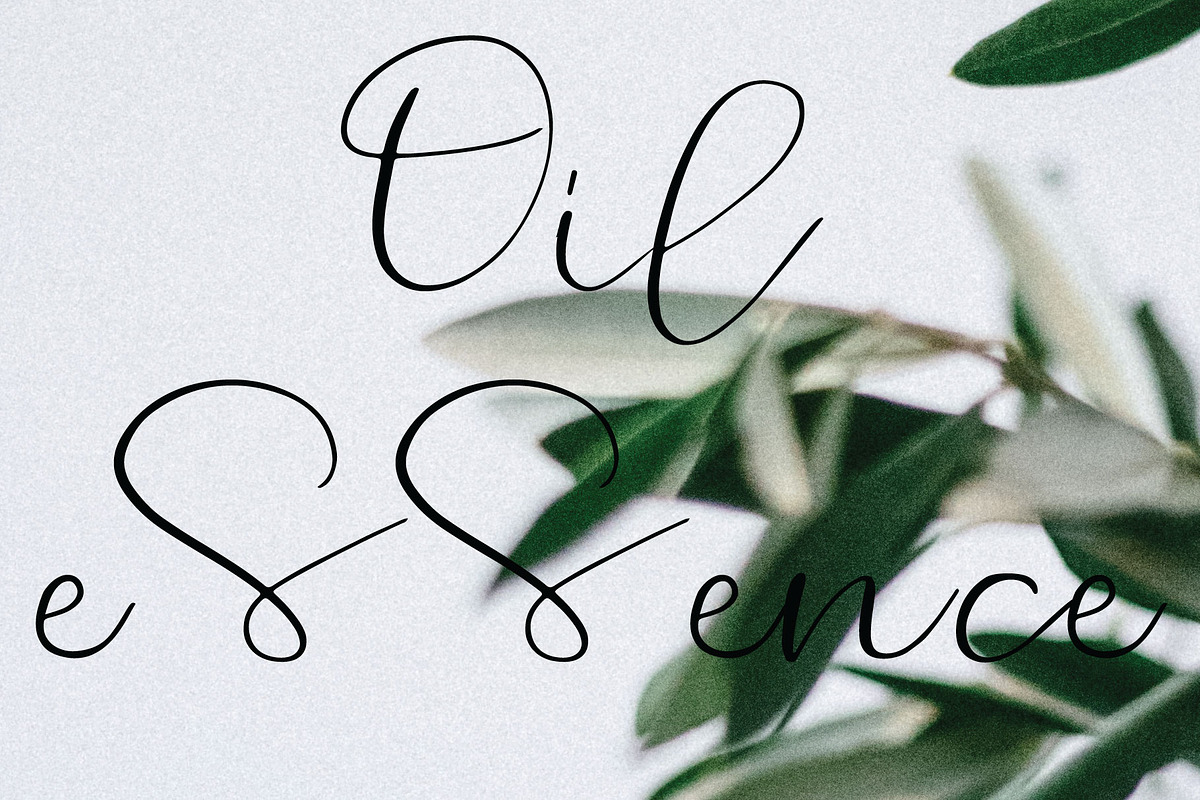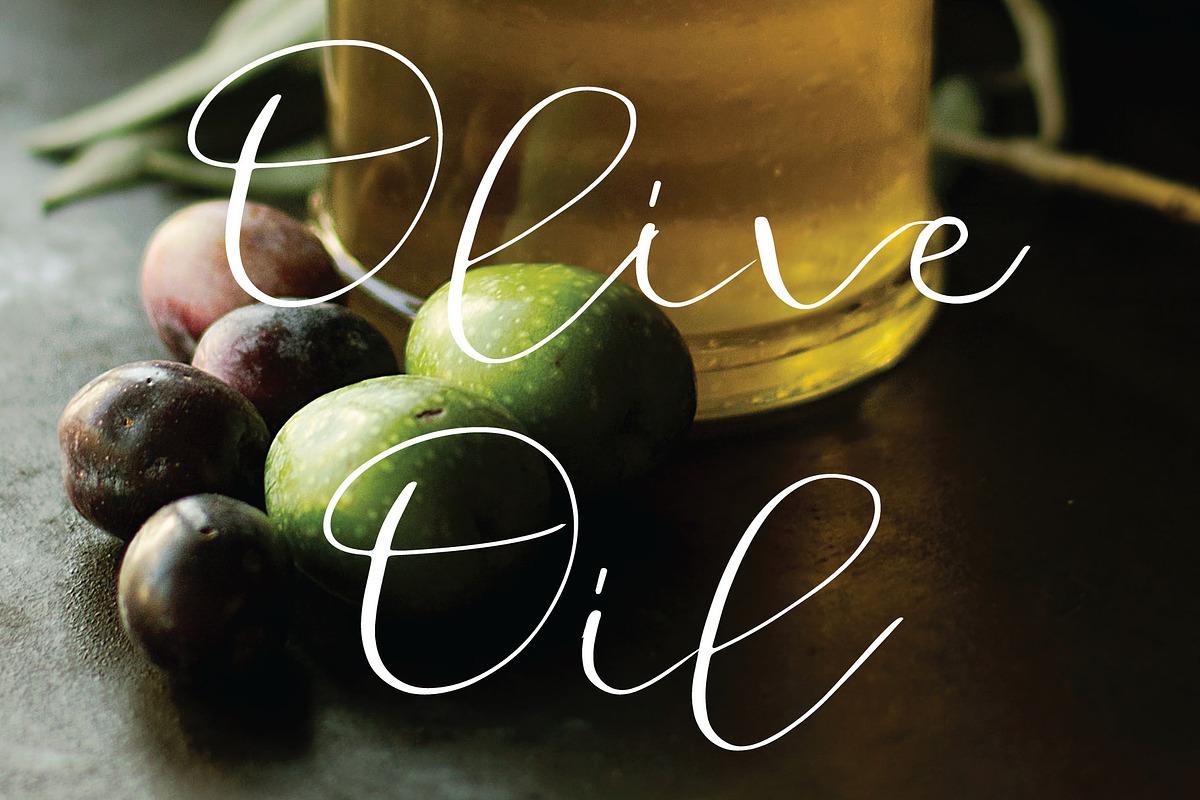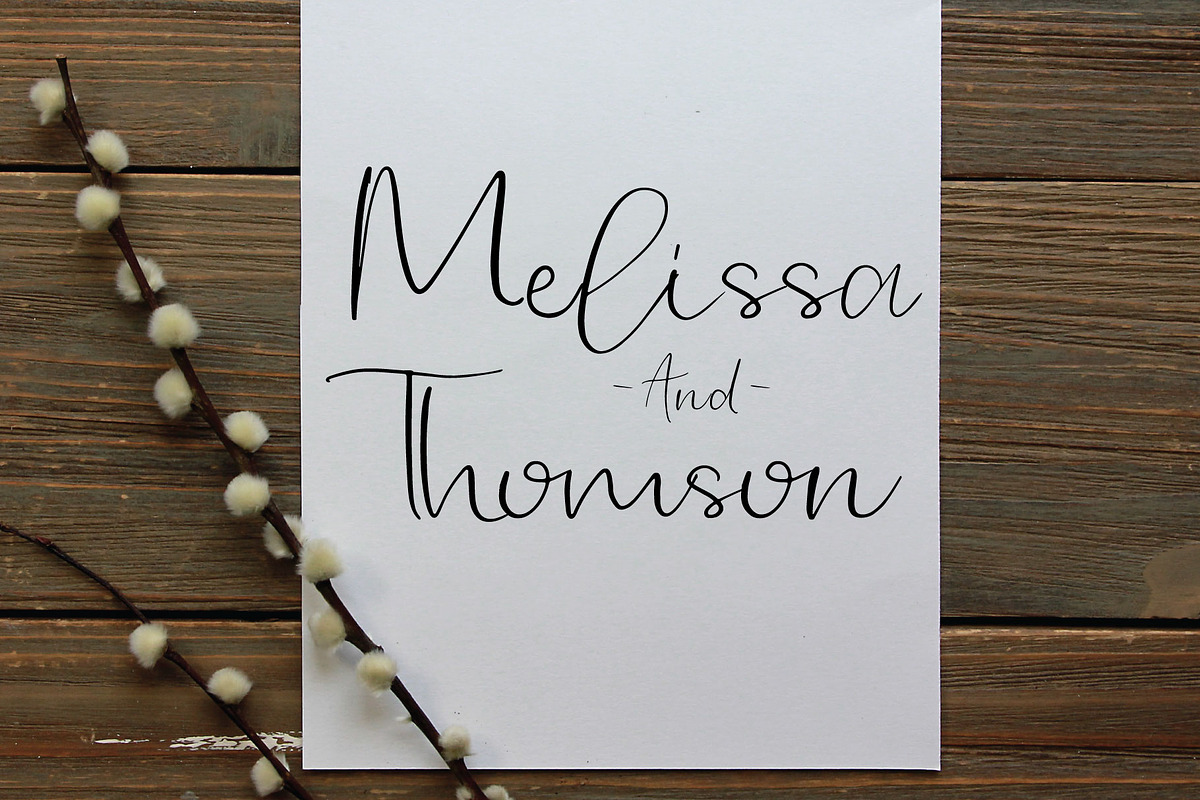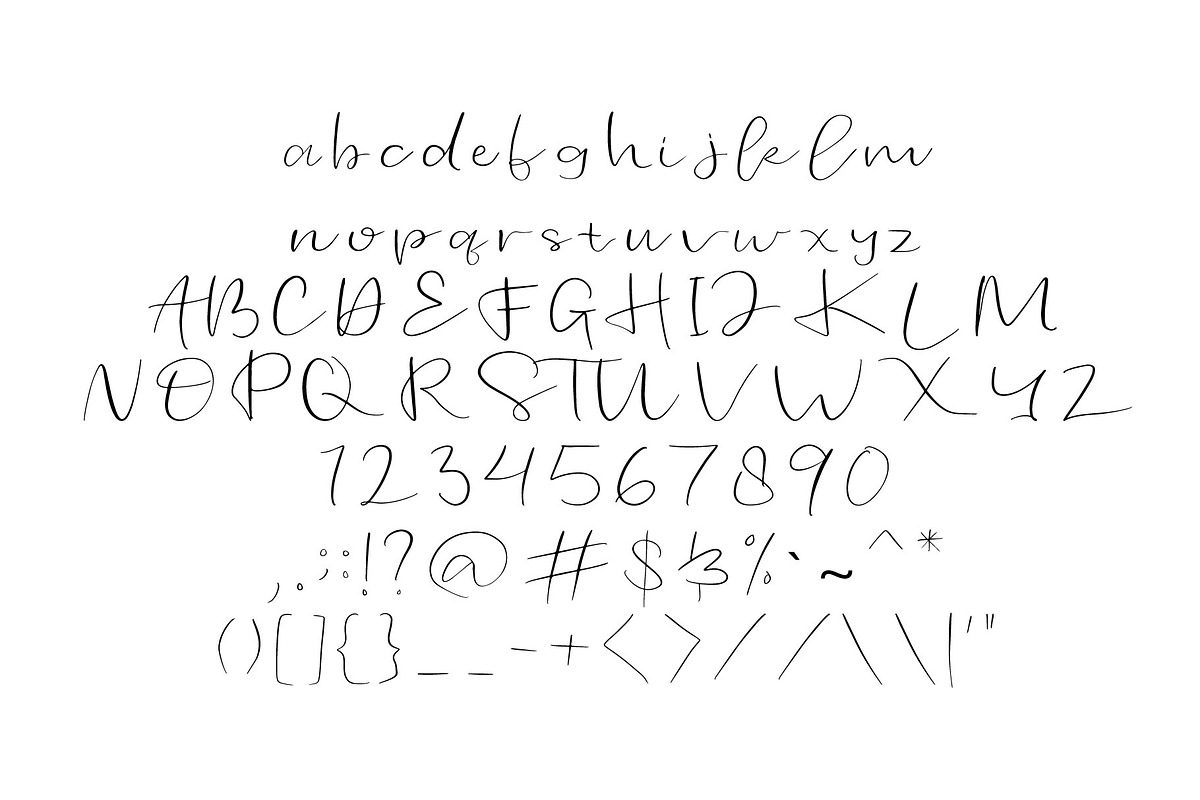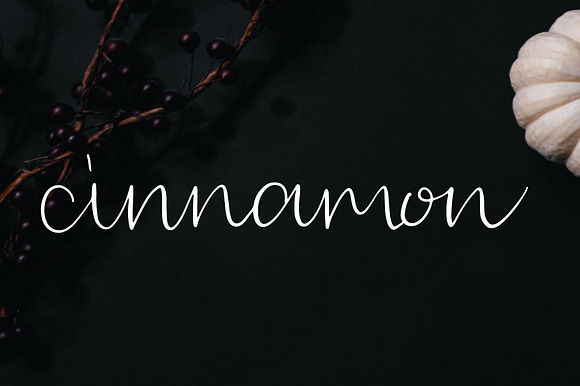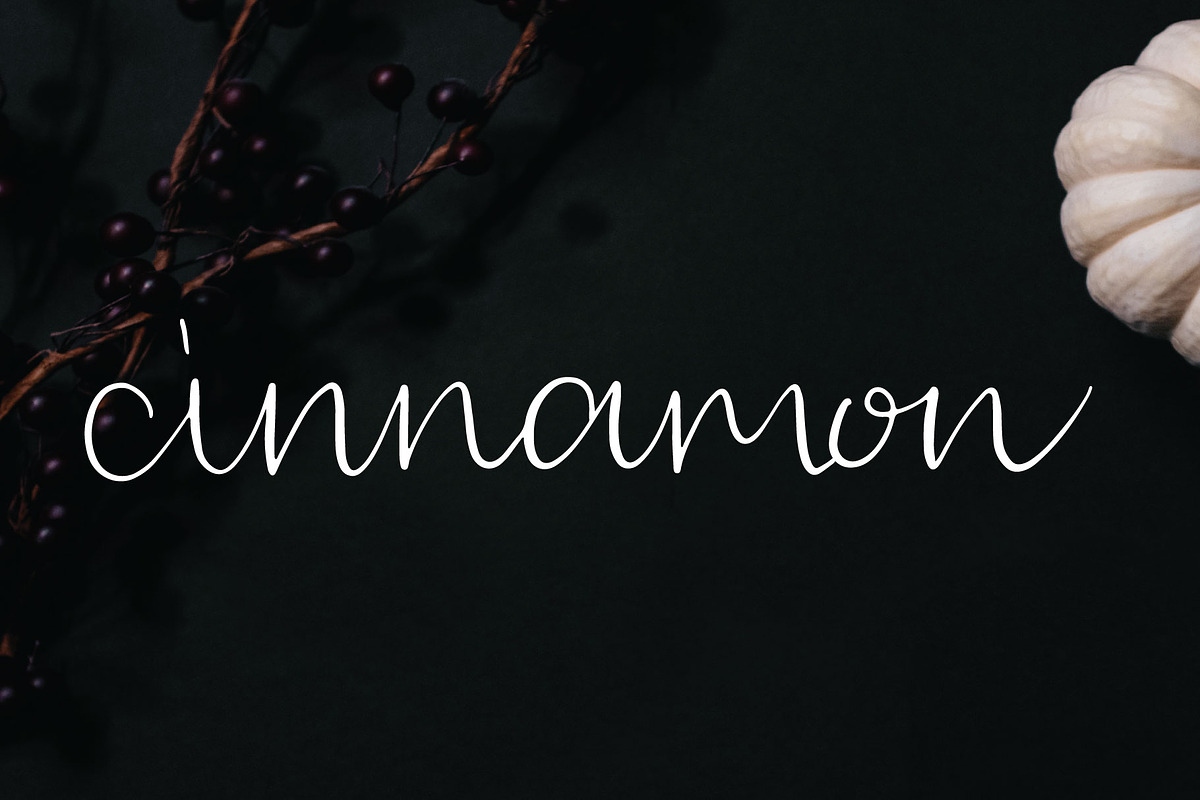
Cinnamon Font
Cinnamon Font by Goodigital13 is a font selected for branding, posters, packaging, typography.
Cinnamon Font by Mariyana fits naturally into Branding, posters, packaging, typography.